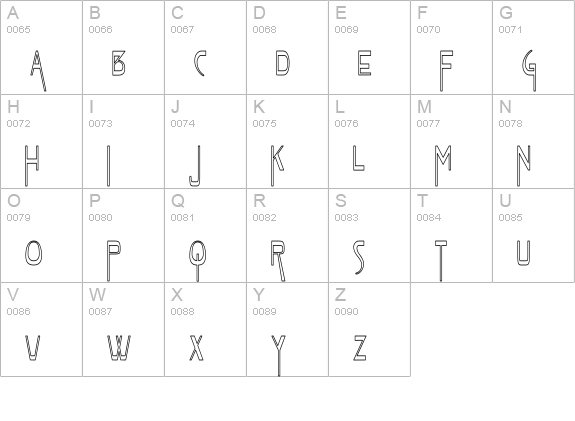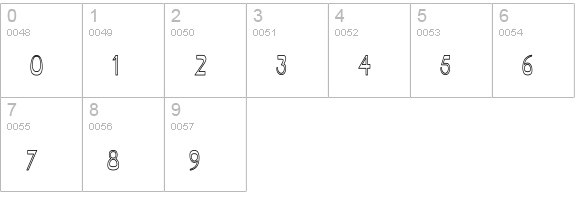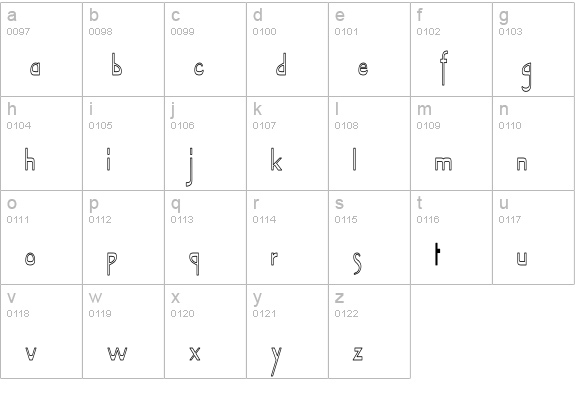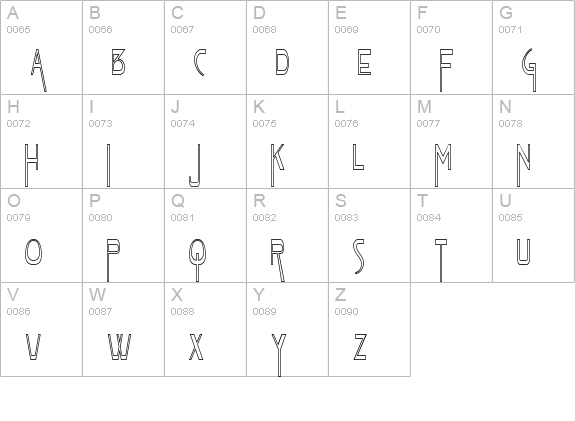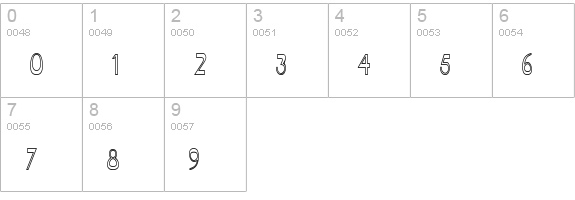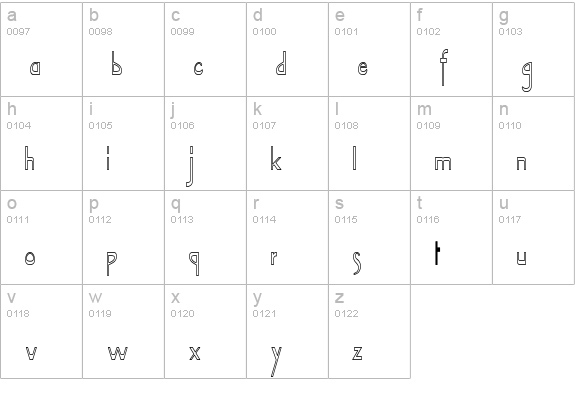
VireoFontHC Font Details
VireoFontHC is a stunningly elegant and versatile font that is sure to make a statement in any design project. Its sleek and modern appearance, combined with its unique and eye-catching letterforms, make it the perfect choice for everything from logos and branding to headlines and posters. This font exudes sophistication and professionalism, while still maintaining a touch of playfulness. Its clean lines and balanced proportions create a sense of harmony and clarity, ensuring that your message will be conveyed with utmost precision and impact. VireoFontHC is freely available to download at FontsMarket.com, making it accessible to designers and creatives of all levels. Whether you're a seasoned professional or just starting out, this font is a valuable addition to your toolkit. Whether you're working on a corporate identity project, a magazine layout, or a website design, VireoFontHC will elevate your work to new heights. Its versatility allows it to adapt to a wide range of design styles and themes, making it a reliable choice for any creative endeavor. With its extensive character set, including various ligatures and alternates, VireoFontHC offers endless possibilities for customization and personalization. This font truly allows you to make your designs stand out from the crowd. So why wait? Download VireoFontHC for free at FontsMarket.com and unlock the potential of this exceptional font. Whether you're looking to make a bold statement or add a touch of sophistication to your designs, VireoFontHC is the perfect choice. Start creating stunning and memorable designs today with this incredible font.